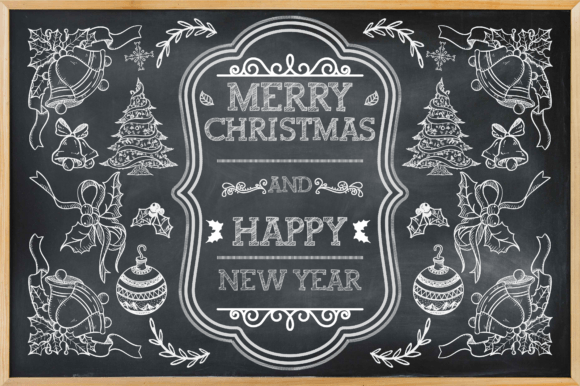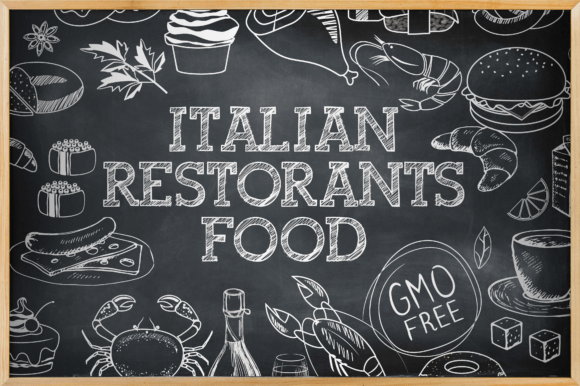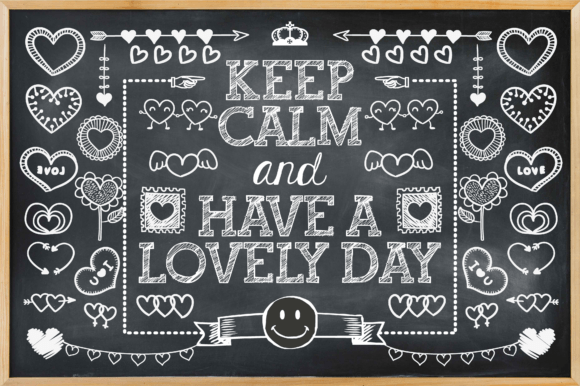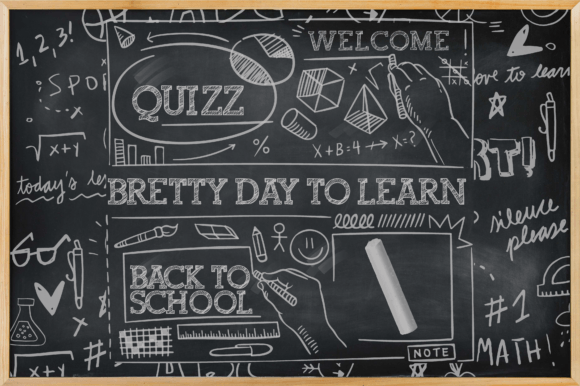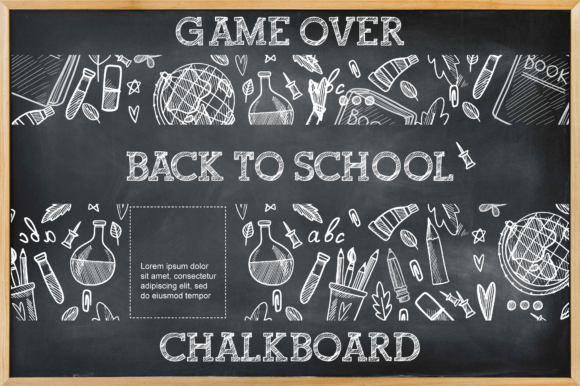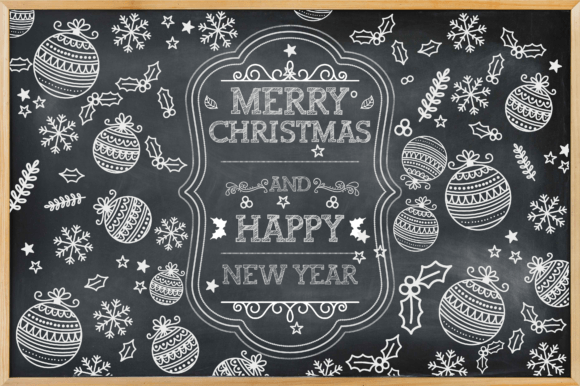
Unleash the Charm of Chalkboard 2.0 Font in Your Next Design
Do you remember the joy of writing on a chalkboard as a kid? The satisfying scratch of the chalk against the surface, the smell of the eraser, and the feeling of creating something from scratch? For many of us, those moments are etched in our memories, and they can be a powerful source of inspiration for designers. As we grow older, our love for the chalkboard aesthetic never fades, and that’s where Chalkboard 2.0 Font comes in – a stylish and versatile slab serif typeface that captures the essence of the classic chalkboard look.
This font is more than just a nostalgic nod to the past; it’s a valuable tool for designers looking to add a touch of warmth and character to their projects. Whether you’re creating educational materials, menus for a cozy café, or branding for a restaurant, Chalkboard 2.0 Font is the perfect choice to elevate your design and make it truly stand out.
Chalkboard 2.0 Font Key Features
- Unique Characteristics: Chalkboard 2.0 Font features a distressed, hand-drawn style with subtle imperfections, giving it a unique and nostalgic feel.
- Multi-Language Support: The font supports a wide range of languages, including Latin-based languages, Cyrillic, and Greek, making it a versatile choice for designers and typographers.
- Font Weight and Style: Chalkboard 2.0 Font comes in 3 different font weights (Light, Regular, and Bold) and 2 font styles (Regular and Italic), offering a range of options for designers to choose from.
Chalkboard 2.0 Font Review
First off, I want to say that I was really excited to dive into the Chalkboard 2.0 font. I love a good distressed font, and this one did not disappoint. ✨ The texture and imperfections are so well done that it really adds to the charm of the design. It’s perfect for creating a rustic or vintage vibe.
The font is also highly customizable, with a range of weights and styles to choose from. This makes it easy to use in a variety of design contexts, from logos to packaging to signage. ✨ The font is also highly legible, even at small sizes, which is a must for any font.
While the Chalkboard 2.0 font is a great addition to any designer’s toolkit, there are a few limitations to be aware of. ⚠️ For one, the font can be a bit tricky to use in all caps, as the texture can make the letters look a bit cramped. Additionally, the font may not be the best choice for body text, as it can be a bit too ornate for large blocks of text.
Overall, I’m really impressed with the Chalkboard 2.0 font. It’s a great choice for designers looking to add a touch of vintage charm to their designs. While it may have some limitations, it’s definitely worth checking out.
- Highly customizable with range of weights and styles
- Perfect for creating a rustic or vintage vibe
- Highly legible, even at small sizes
- May not be the best choice for body text or all caps
Practical Application Guide for Chalkboard 2.0 Font
The Chalkboard 2.0 font is perfect for:
- Crafting a rustic or vintage look.
- Designing educational materials, such as worksheets and lesson plans.
- Creating invitations and party decorations with a playful, handwritten feel.
For optimal results, pair the Chalkboard 2.0 font with distressed textures and earthy colors.